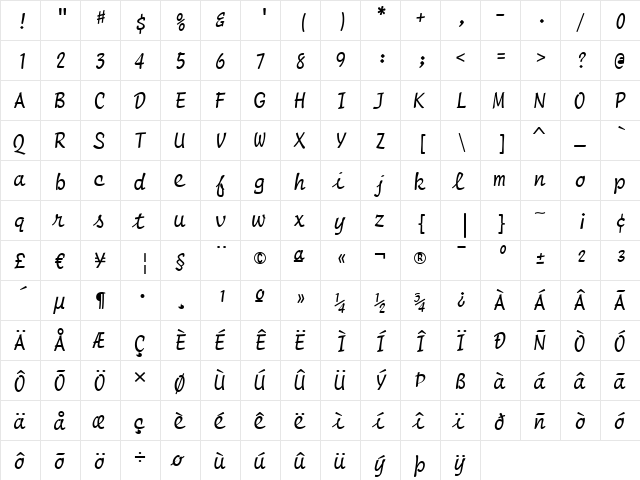
Script 12 Pitch Regular
Design Context for Script 12 Pitch Typeface
Script 12 Pitch flows with the natural rhythm of handwritten lettering, making it ideal for designs that call for warmth and personal expression.
Font Pairing: Combine Script 12 Pitch with a simple geometric sans for maximum contrast — the tension between flowing curves and clean structure is a classic typographic pairing.
Pro Tip: Pair Script 12 Pitch with a clean sans-serif for supporting text. The contrast between fluid script and geometric structure creates an elegant typographic hierarchy.